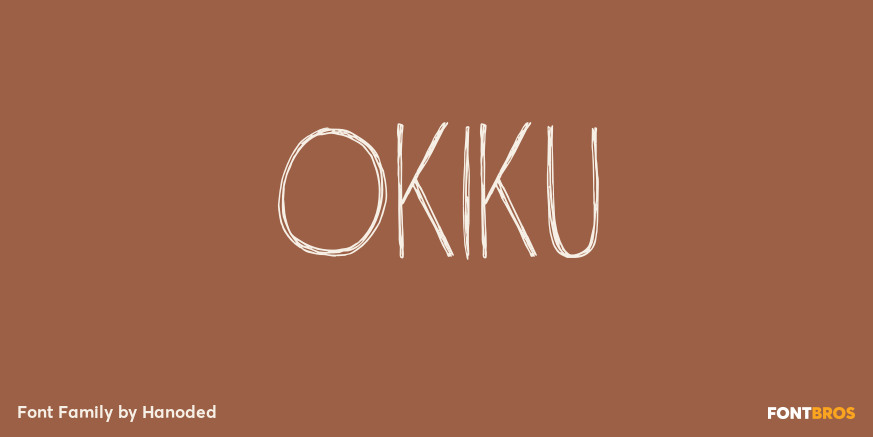
Okiku
About Okiku
The tale of Okiku Of The Nine Plates is an old Japanese story full of lust, deceit, murder and revenge. It tells of Okiku, a beautiful servant whose master lusts after her. After she refuses his amorous advances, he accuses her of stealing a costly plate…